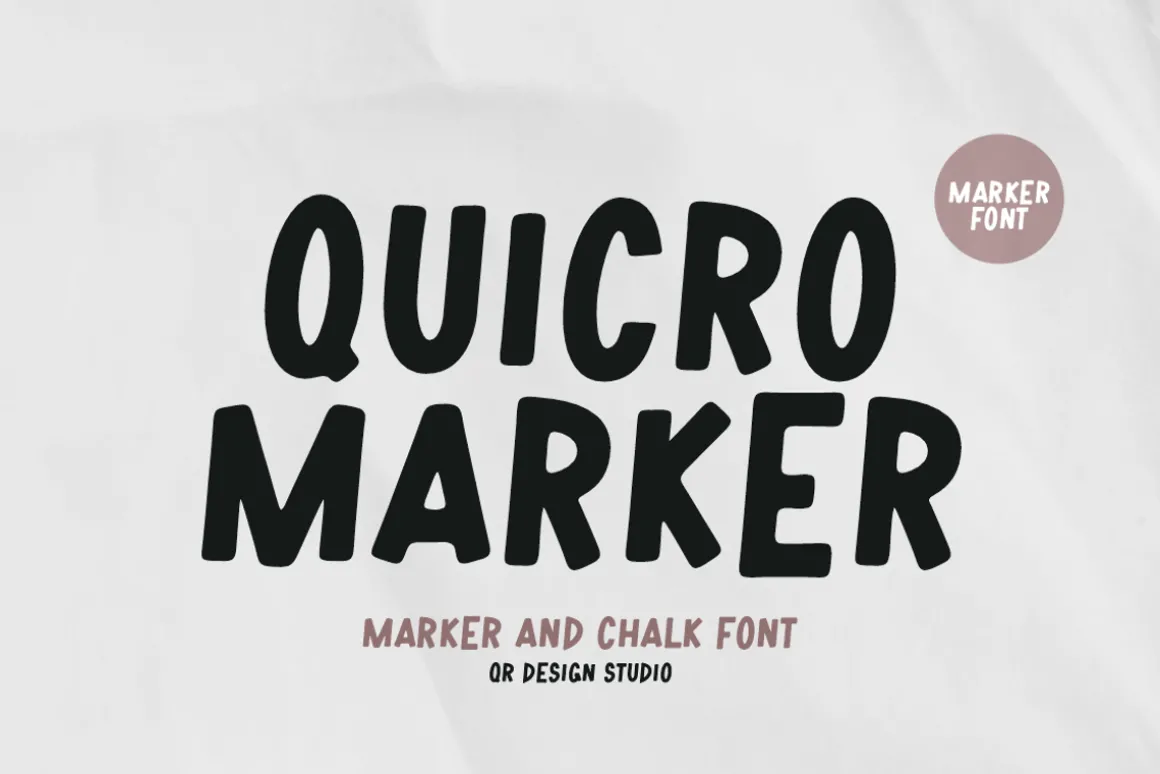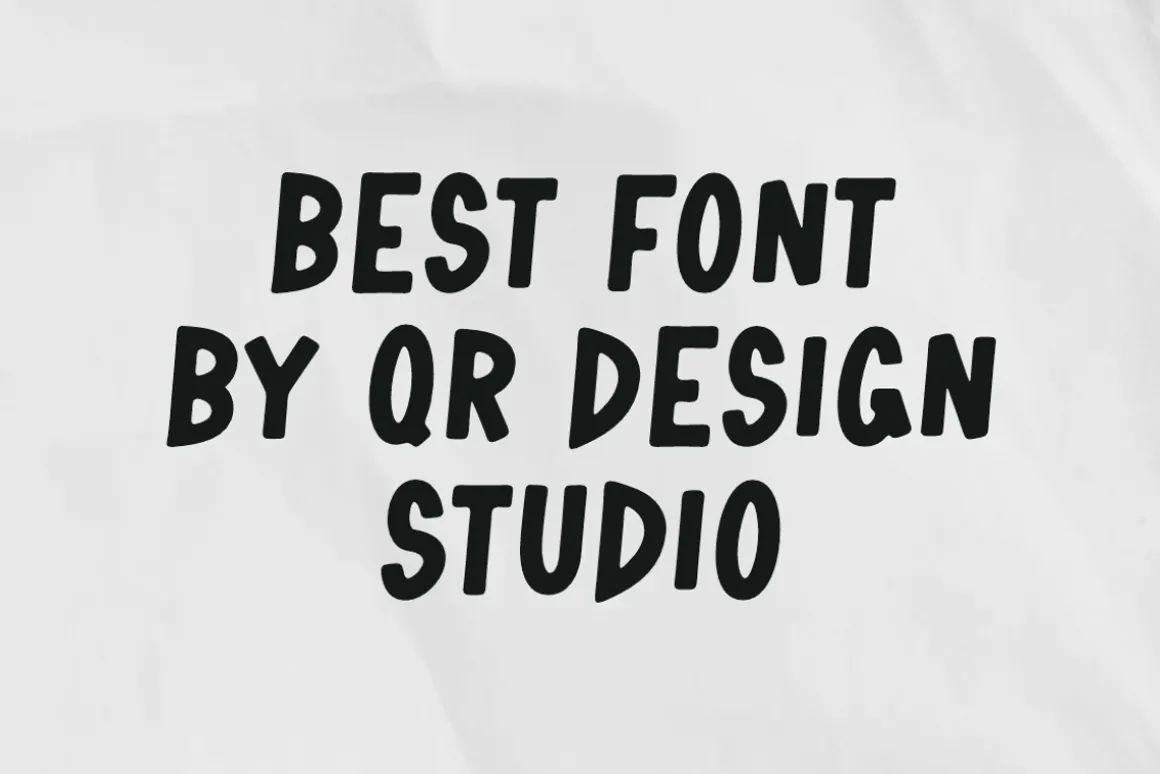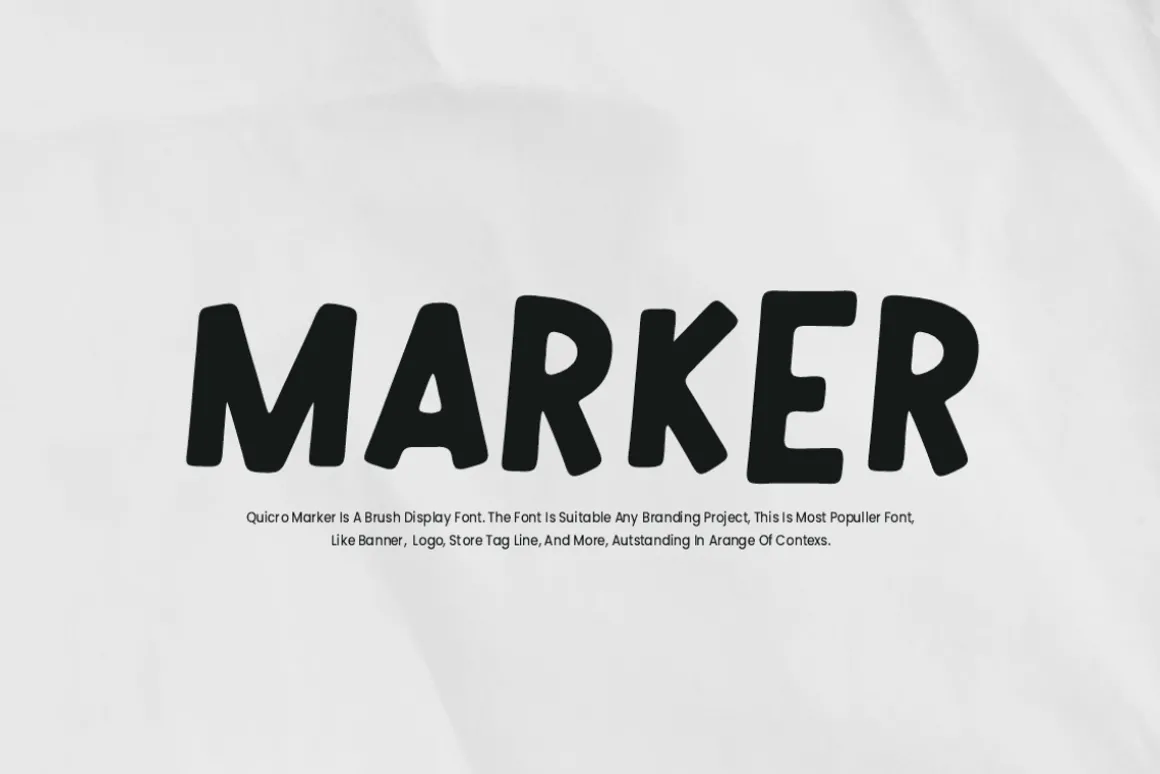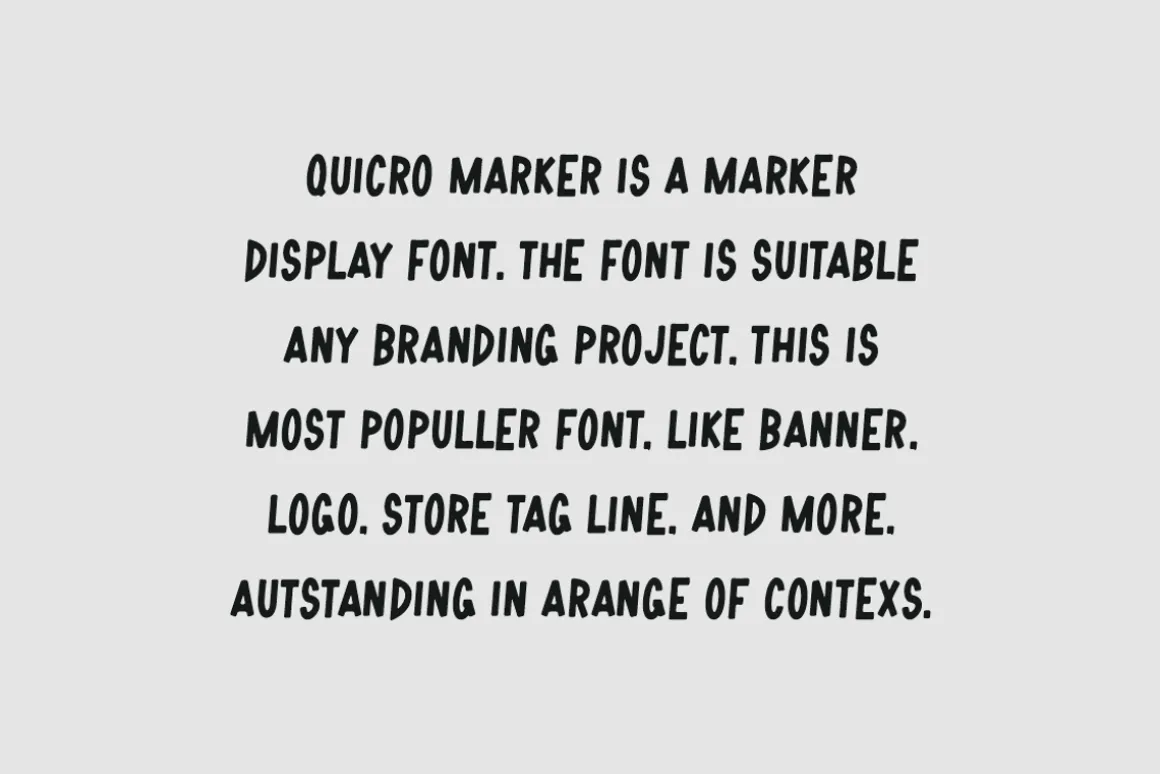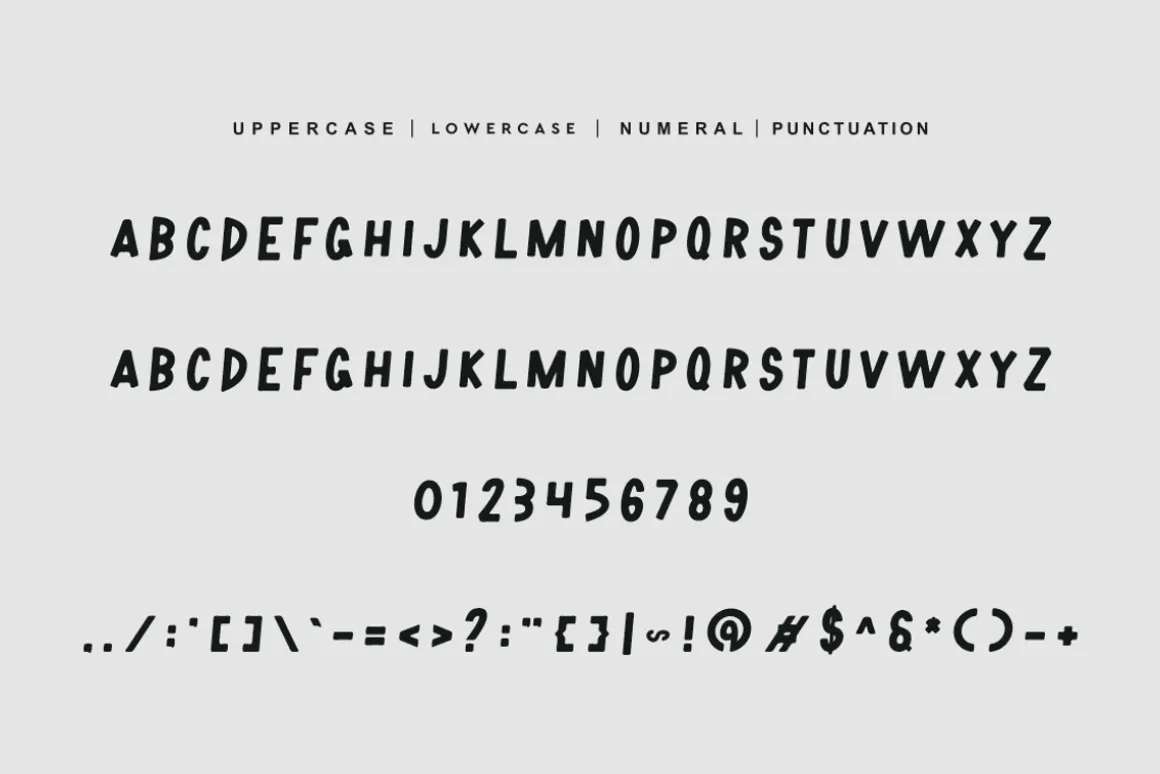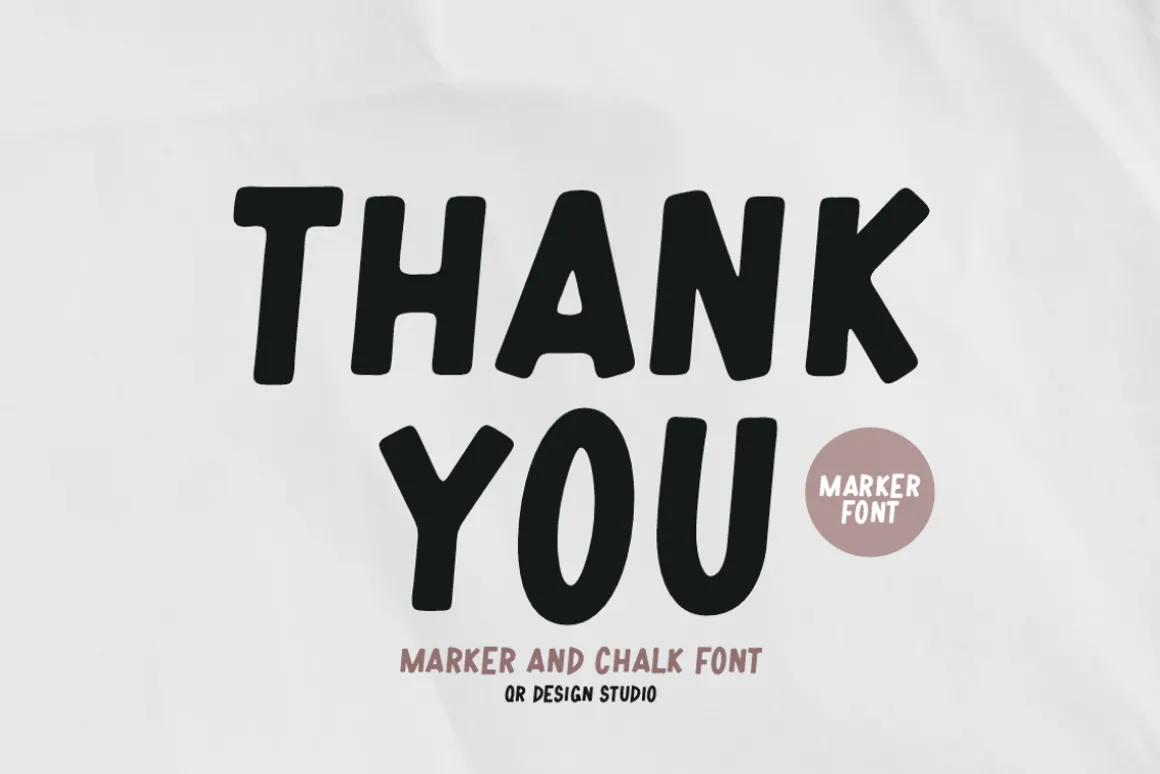
Quicro Marker Font is a chalk and authentic display font.The font is suitable for any branding project like poster, logo, kids, and many more.Outstanding in a wide range of contexts.